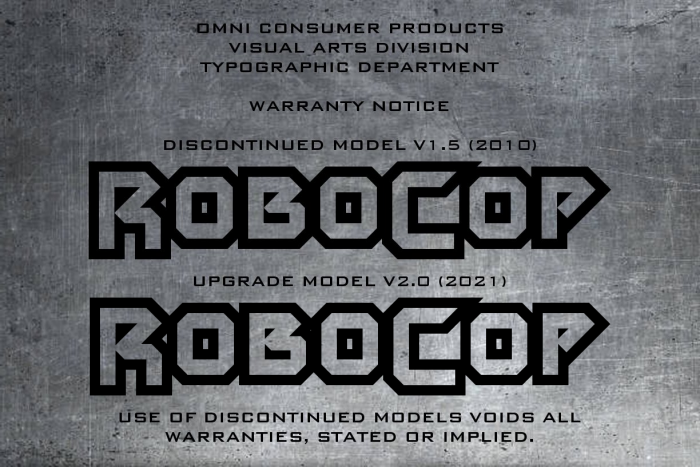
Solid version of the iconic typeface.
Looks like someone is using my font "Alex Murphy Solid" for a worthy cause:
Detroit Needs RoboCop
Damn! No credit! Awww
That's OK, Drgrit -- it's for charity! :^) And Old Detroit could certainly use him!
ANNNND it looks like the fan-funded documentary, "RoboDoc: The Creation of RoboCop," has been using my typeface since the Kickstarter/crowd-funding campaign began back in 2016 (latest example at this time stamp):
"RoboDoc" Trailer Font Usage
RoboCop has gotten an upgrade: font is now at version 2.0.  Diagonals and lowercase crossbars were a thickened, and diagonals now cross into the vertical strokes. Now more movie accurate than ever!